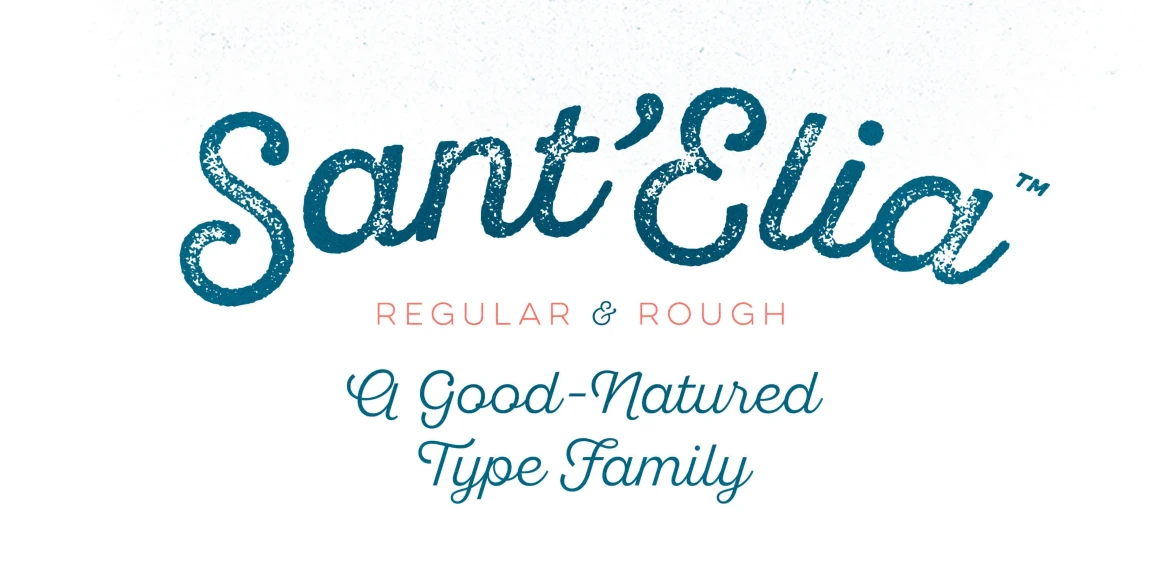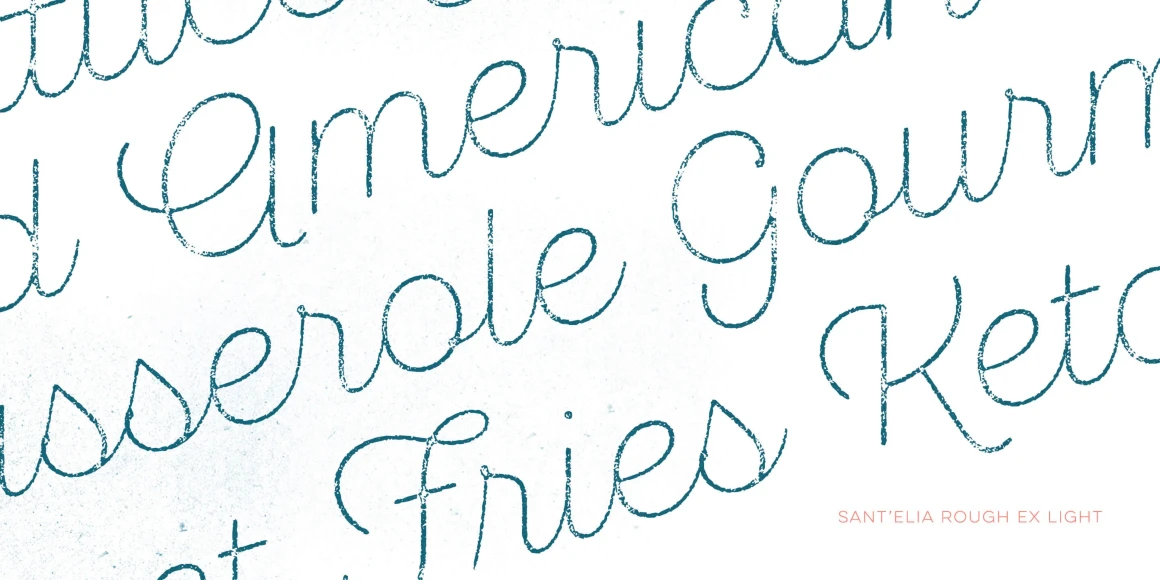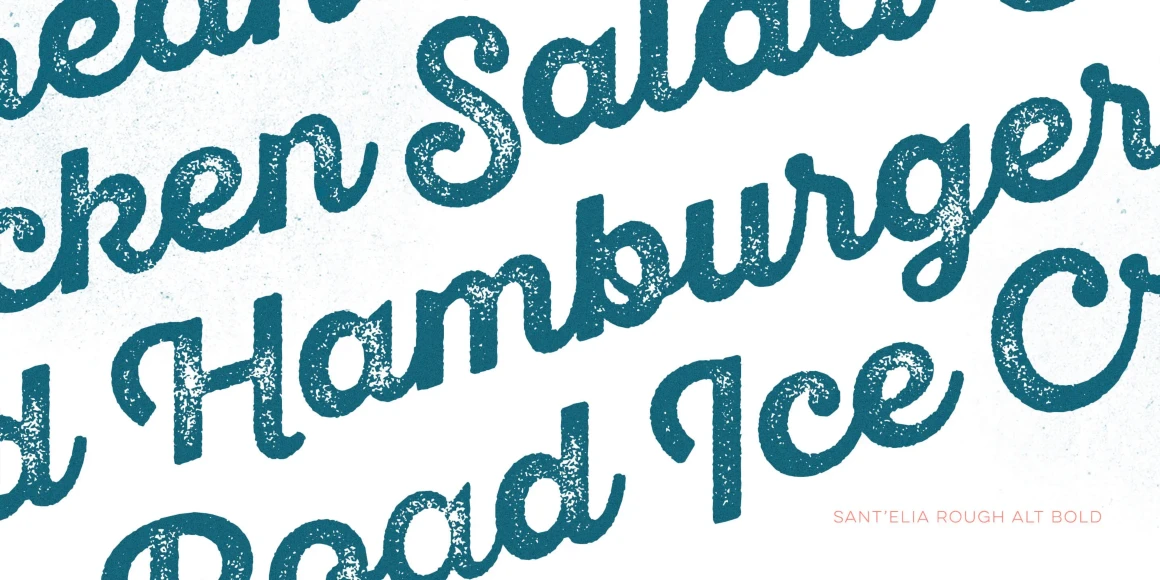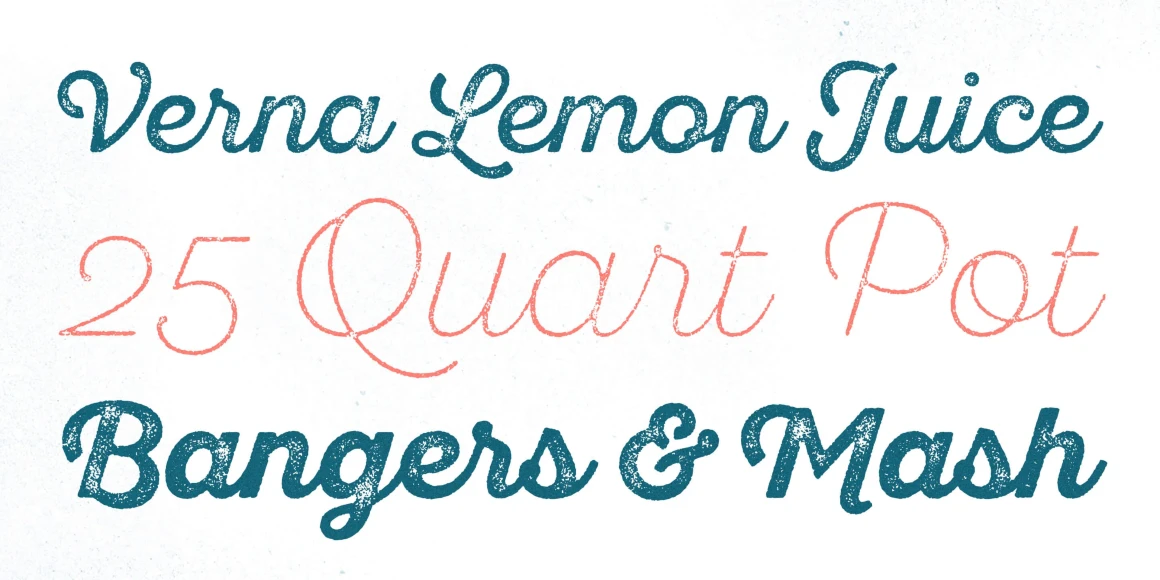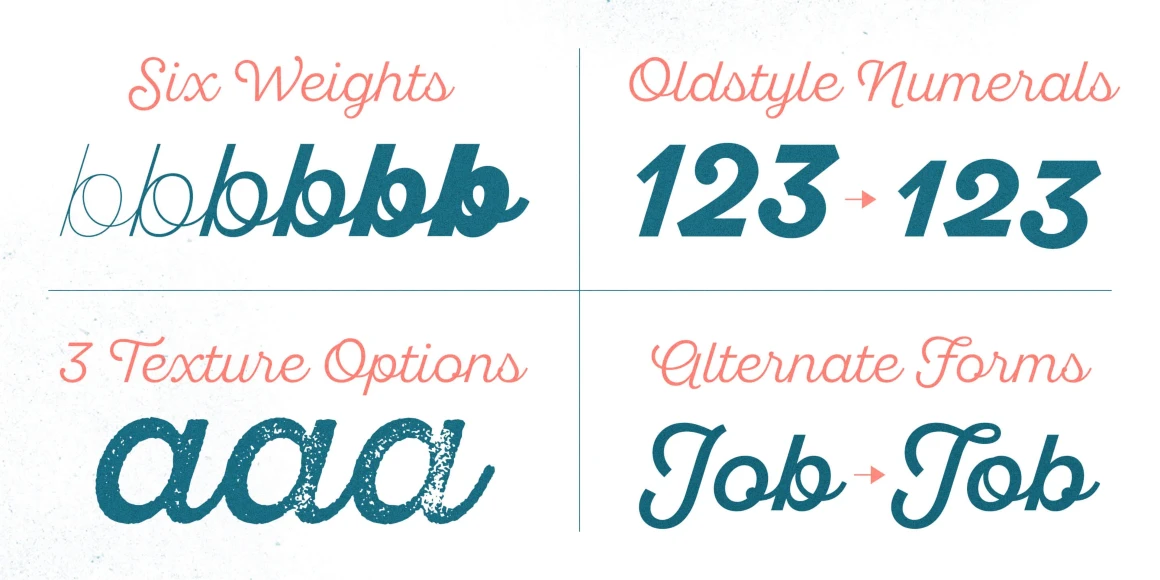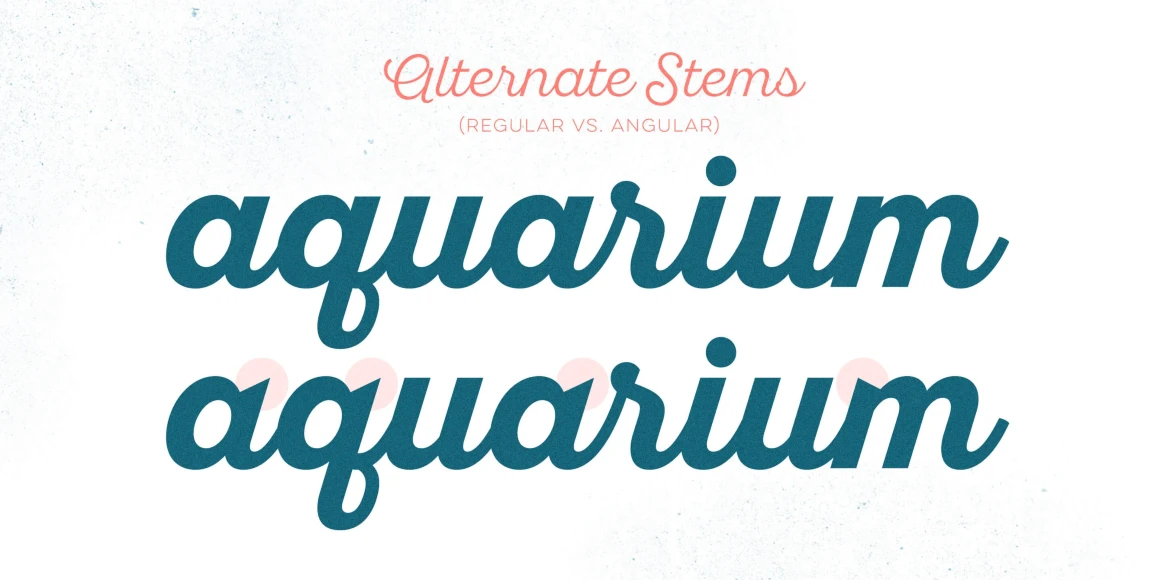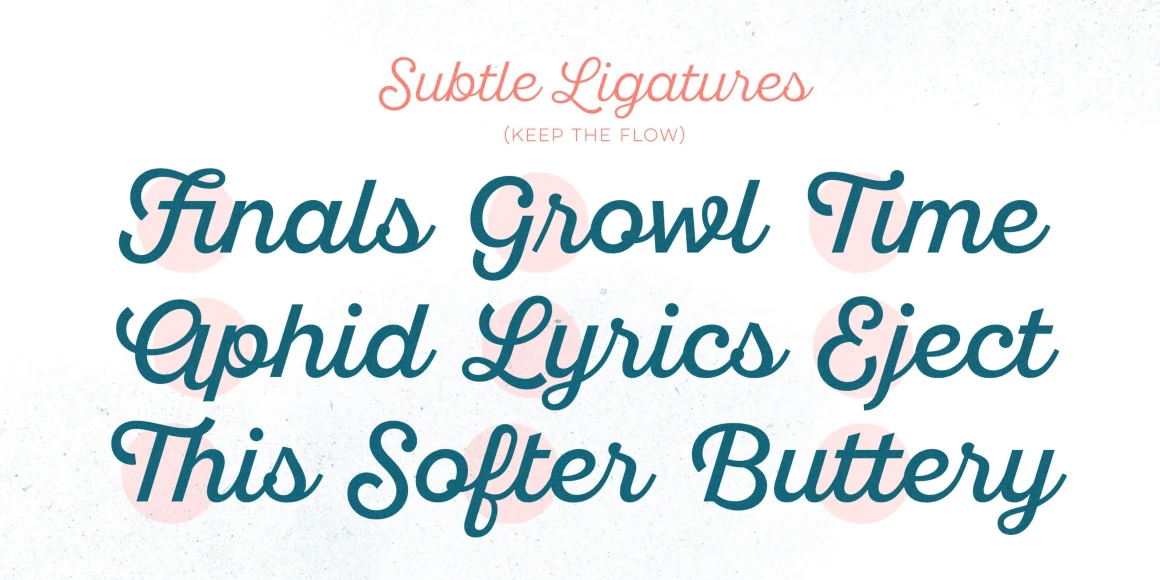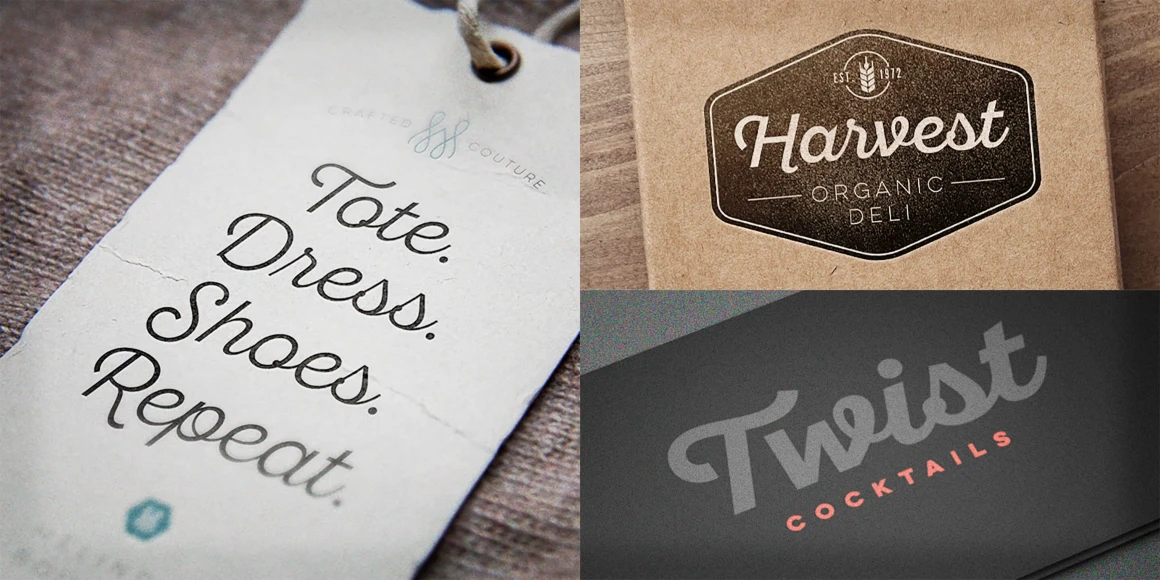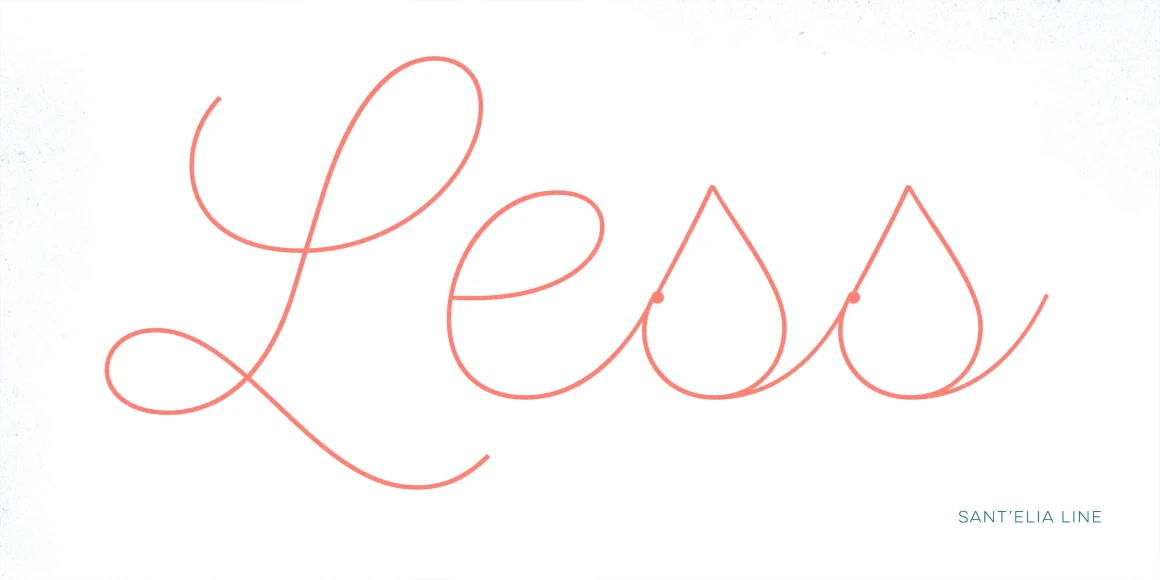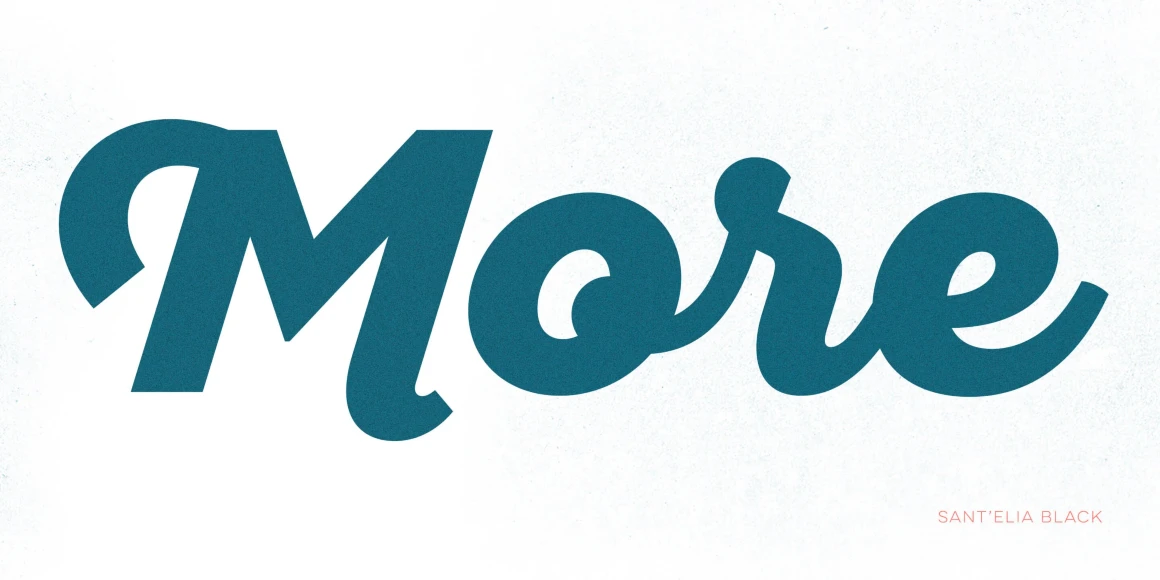
Sant'Elia Script
From Yellow Design Studio
Sant’Elia Script from Yellow Design Studio is a robust modern type family with regular and rough versions in six weights. Its forms are crisp and welcoming with a splash of verve. Alternate versions feature angled strokes that inject extra energy. Rough weights include three different distress levels that can be mixed for added control and customization. Containing 44 styles, it is a versatile family with advanced typographic features. Try Sant’Elia Rough Line, Line Two, and Line Three!
Designed by Ryan Martinson & Rhea Martinson